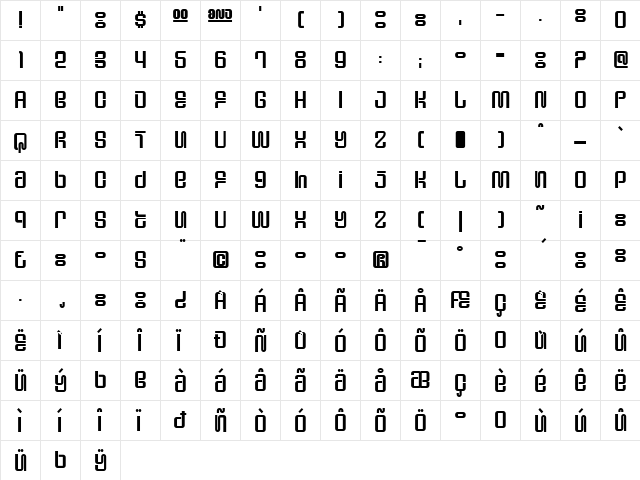
Supervixen Honeyed Out Regular
Design Context for Supervixen Honeyed Out Typeface
Supervixen Honeyed Out is a composed and adaptable typeface that performs quietly and consistently across a wide range of design contexts.
Pro Tip: Use Supervixen Honeyed Out in both headline and body roles to test its range before committing to a single application.